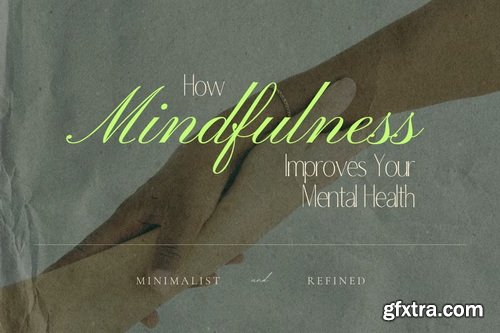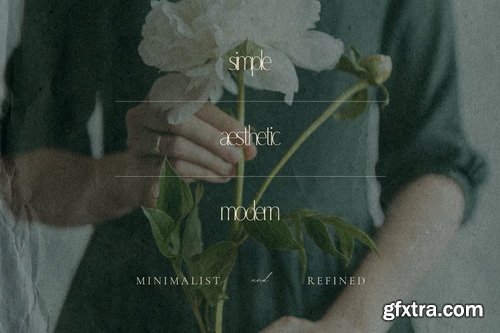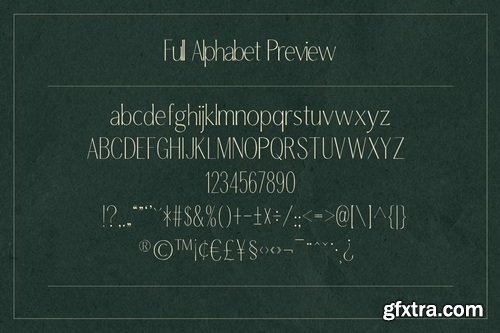
CreativeMarket - Lignee – High Fashion Sans Serif
- Meet Lignée, a high-fashion sans serif typeface crafted for those who seek elegance in minimalism. With its ultra-thin strokes, subtly irregular hand-drawn structure, and stitched-like crossbars, Lignée is a typeface that whispers style in every letterform.
- Designed with a balance between geometric precision and organic personality, Lignée is perfect for editorial headlines, luxury branding, modern packaging, runway lookbooks, and artistic posters.
What Makes Lignée Unique Perfect For